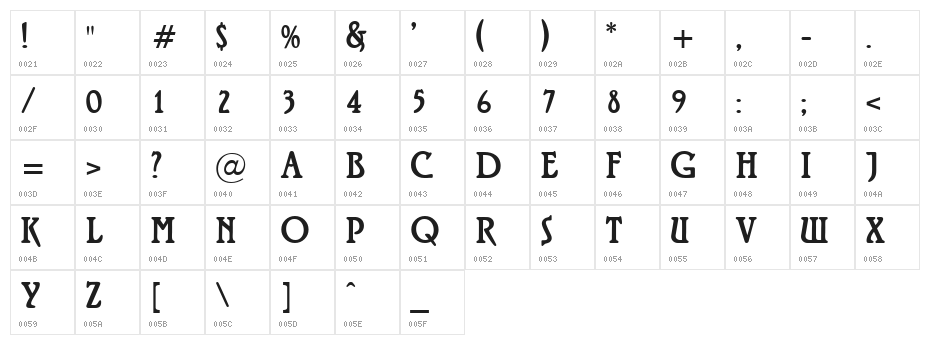
Roskell Font
Roskell Description
This font features a unique blend of classic and modern elements, characterized by its distinct serifs and slightly curved strokes. The uppercase letters exhibit a bold presence with a slight flare at the ends, giving them a traditional yet contemporary feel. The lowercase letters maintain a consistent style, with smooth curves and a moderate contrast in stroke thickness. Numbers are clear and legible, matching the overall aesthetic of the alphabet. Special characters are designed to complement the letterforms, ensuring a cohesive look across all text elements. The font's design is versatile, suitable for both formal and creative applications.
Use CaseHeadlines, Body text, Logos
Proposed ProjectsIdeal for branding, editorial design, book covers, and elegant invitations.